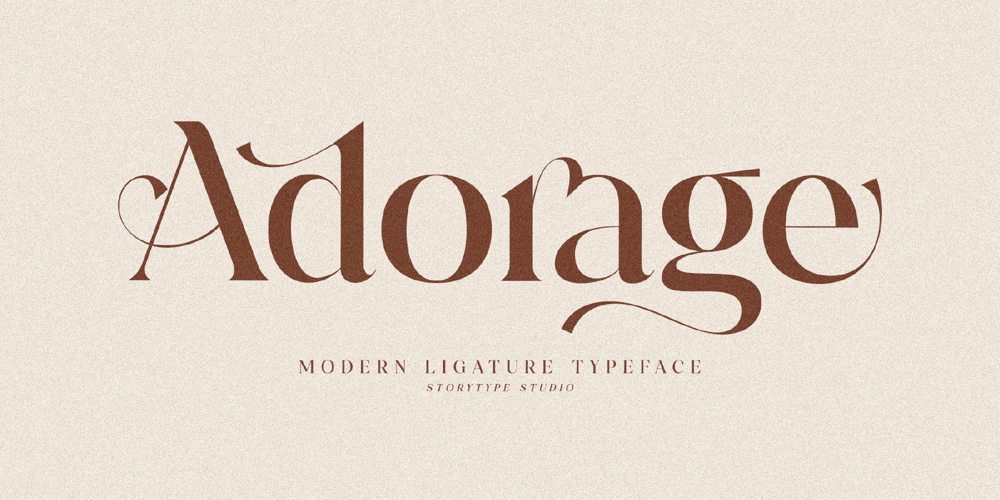
Adorage Font Family was designed by Heru Utama Putra and published by Letterena Studios. Adorage contains 2 styles and family package options. Adorage feels playfully nostalgic and delivers an incredible vintage aesthetic. Use this serif font to add that special retro touch to any design idea you can think of!